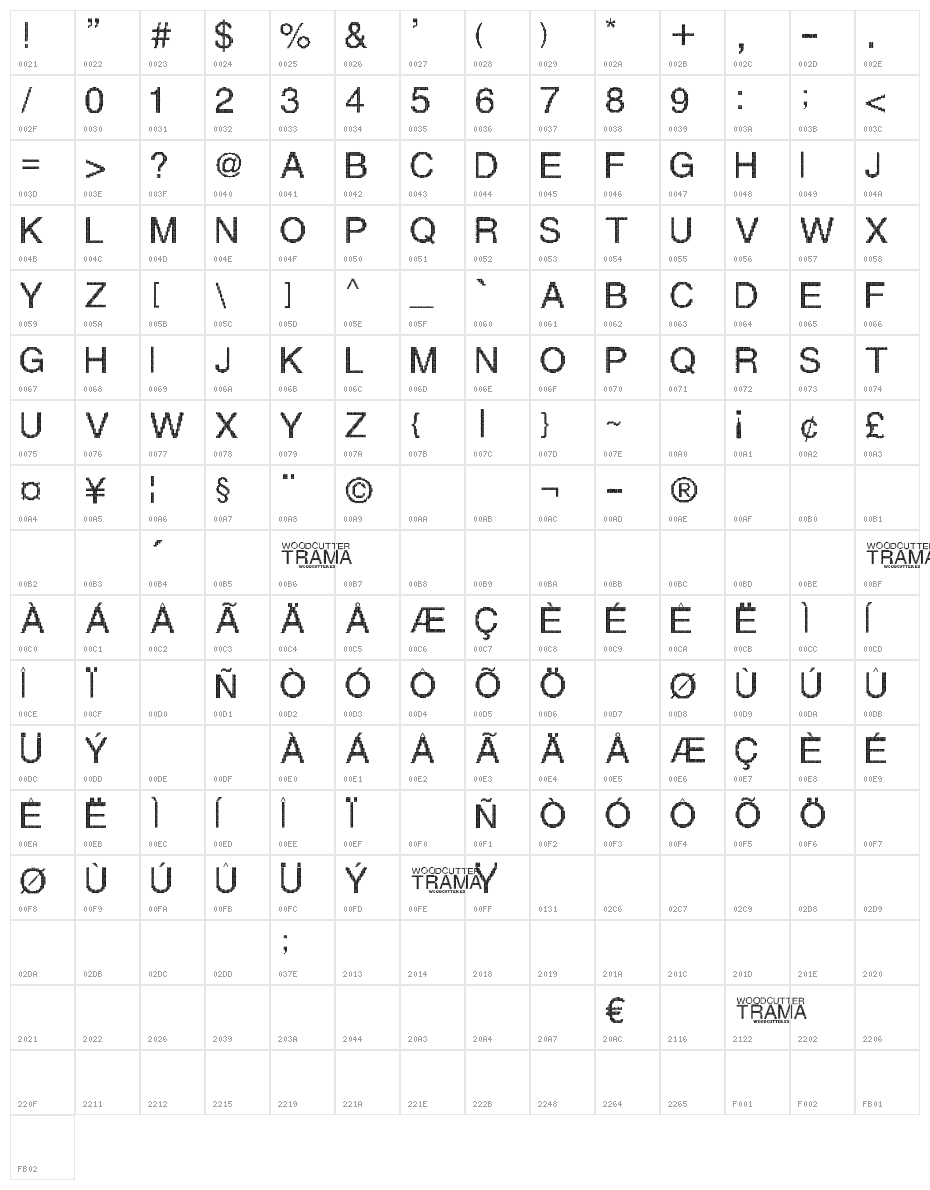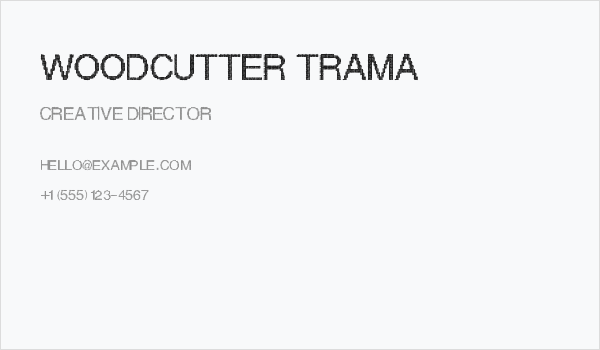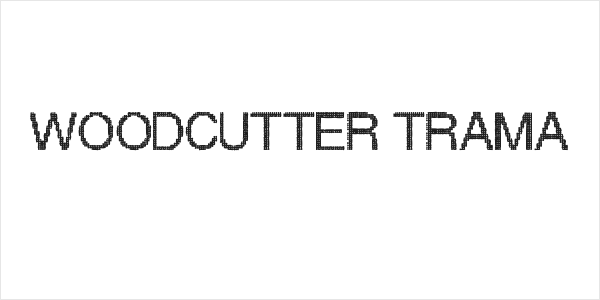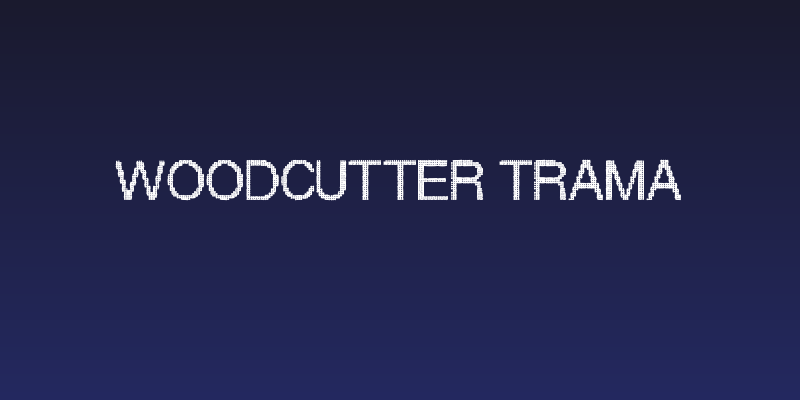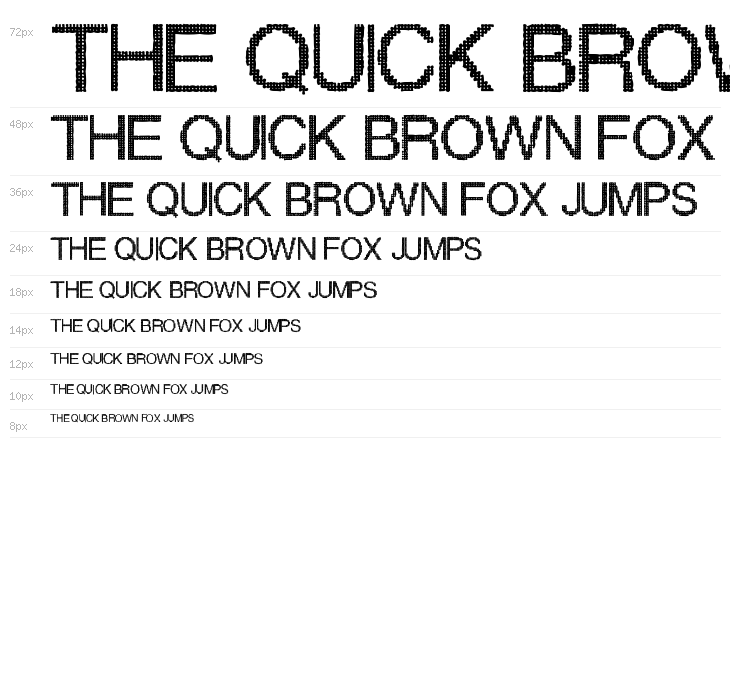
Woodcutter Trama Font
Woodcutter Trama Description
This font features a unique design where each character is composed of a series of small, evenly spaced dots, creating a textured and pixelated appearance. The uppercase and lowercase letters maintain a consistent height and width, providing a uniform look across the alphabet. The numbers and special characters follow the same dotted pattern, ensuring a cohesive style throughout. The font's distinct dotted style gives it a modern and digital feel, reminiscent of early computer graphics or dot matrix printing. Its geometric structure and clear legibility make it suitable for various creative applications.
| Use Case | Logos, Posters, Digital Art |
| Proposed Projects | Ideal for digital art, retro-themed designs, posters, and creative branding projects. |